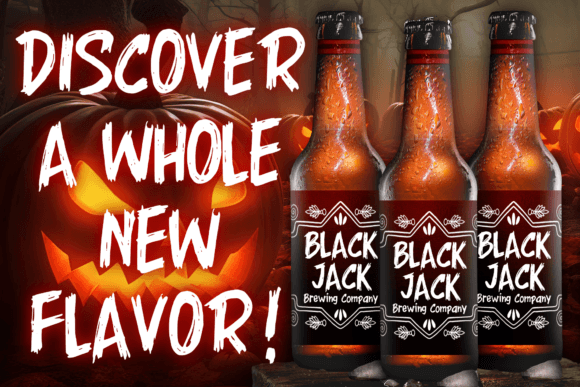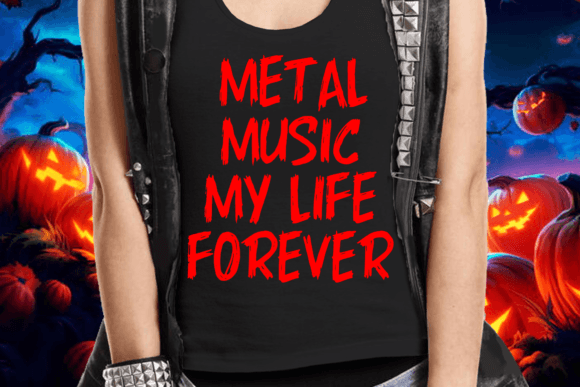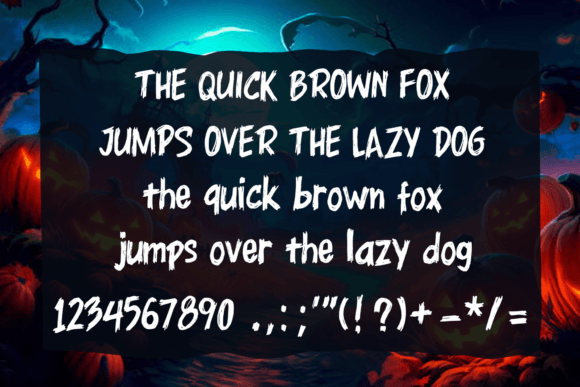
Introduction to Horror Scratch Font
Have you ever been browsing through a thrift store, stumbling upon a vintage horror movie or comic book, and felt an eerie chill run down your spine? That’s the kind of creative spark that can inspire some of the most unforgettable designs. For designers looking to tap into that same feeling, we’ve got just the thing: the Horror Scratch Font.
This high-quality font is a masterful blend of grunge and horror elements, perfectly capturing the essence of a bygone era. With its rough, distressed texture and bold lettering, it’s the perfect design resource for any creative project that needs a touch of the macabre. Whether you’re working on a Halloween-themed campaign, designing merchandise for a metal band, or simply looking to add some edge to your designs, the Horror Scratch Font is an invaluable asset.
Key Features of Horror Scratch Font
- High-quality, unique design ideal for a creative project, offering a spooky and eerie atmosphere.
- Unique characteristics include a distressed, scratched texture, adding an extra layer of horror-themed realism.
Honest Review: Horror Scratch Font
I recently had the chance to use the Horror Scratch Font in a creative project and I’m excited to share my honest review.
The Horror Scratch Font is a free download that offers a unique, high-quality design resource perfect for adding a touch of eeriness to your designs. The font itself has a very transparent background, making it easy to layer and combine with other elements.
- ✨ The font’s distressed texture adds a lot of character to any design.
- ✨ The high-quality design ensures that the font looks great at any size.
- ⚠️ The font may not be suitable for all types of projects, particularly those that require a more polished or professional look.
- ⚠️ Some users may find the distressed texture to be overwhelming or difficult to read.
Overall, I’m impressed with the Horror Scratch Font and would recommend it to designers looking to add a touch of horror or grunge to their work. Just be sure to use it thoughtfully and consider your project’s overall aesthetic.
To get the most out of the Horror Scratch Font, try combining it with other design elements, such as eerie backgrounds and creepy graphics. You can also experiment with different font sizes and styles to create a unique look.
The Horror Scratch Font is perfect for Halloween-themed designs, spooky movie posters, and horror-themed websites. It’s also great for creating a creepy atmosphere in your design.